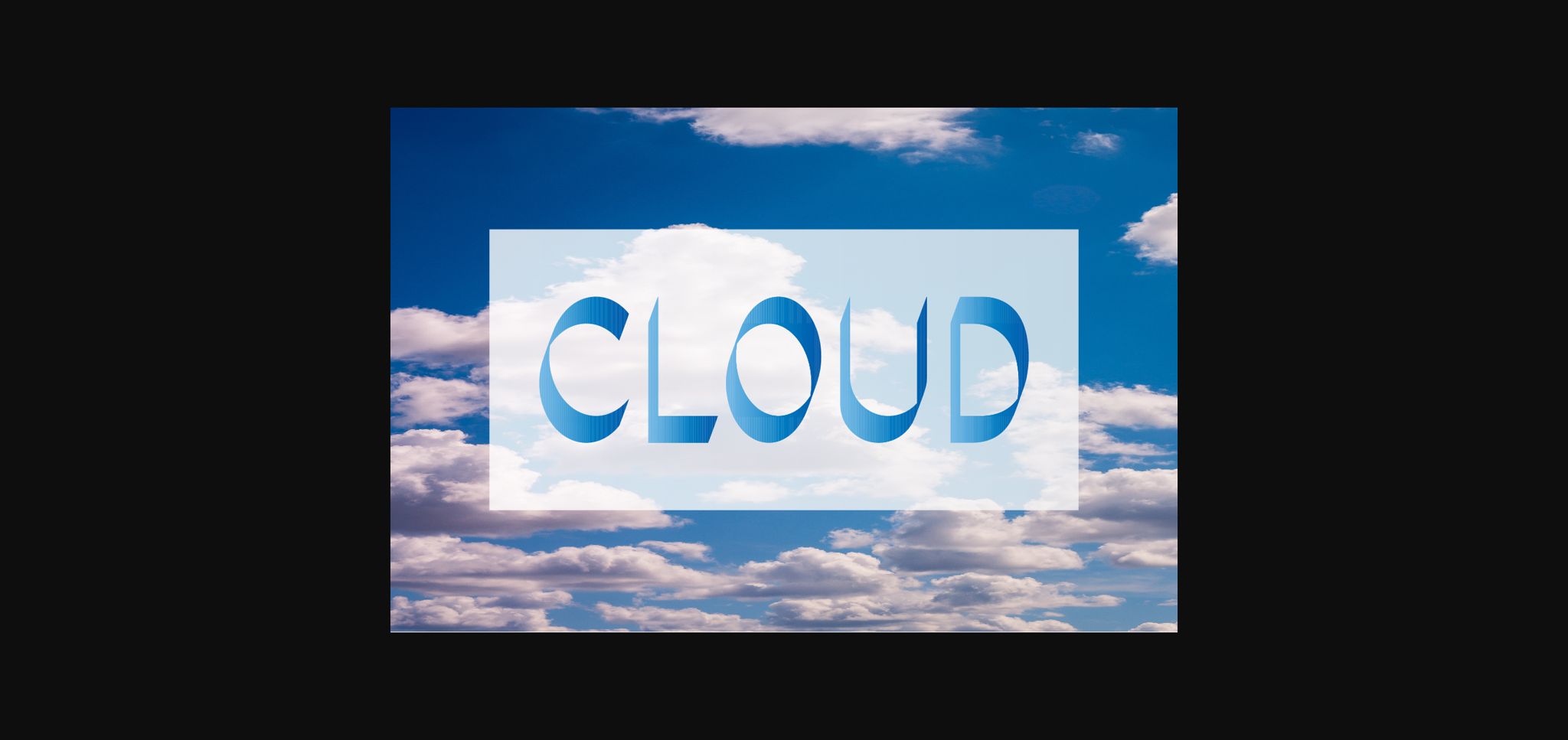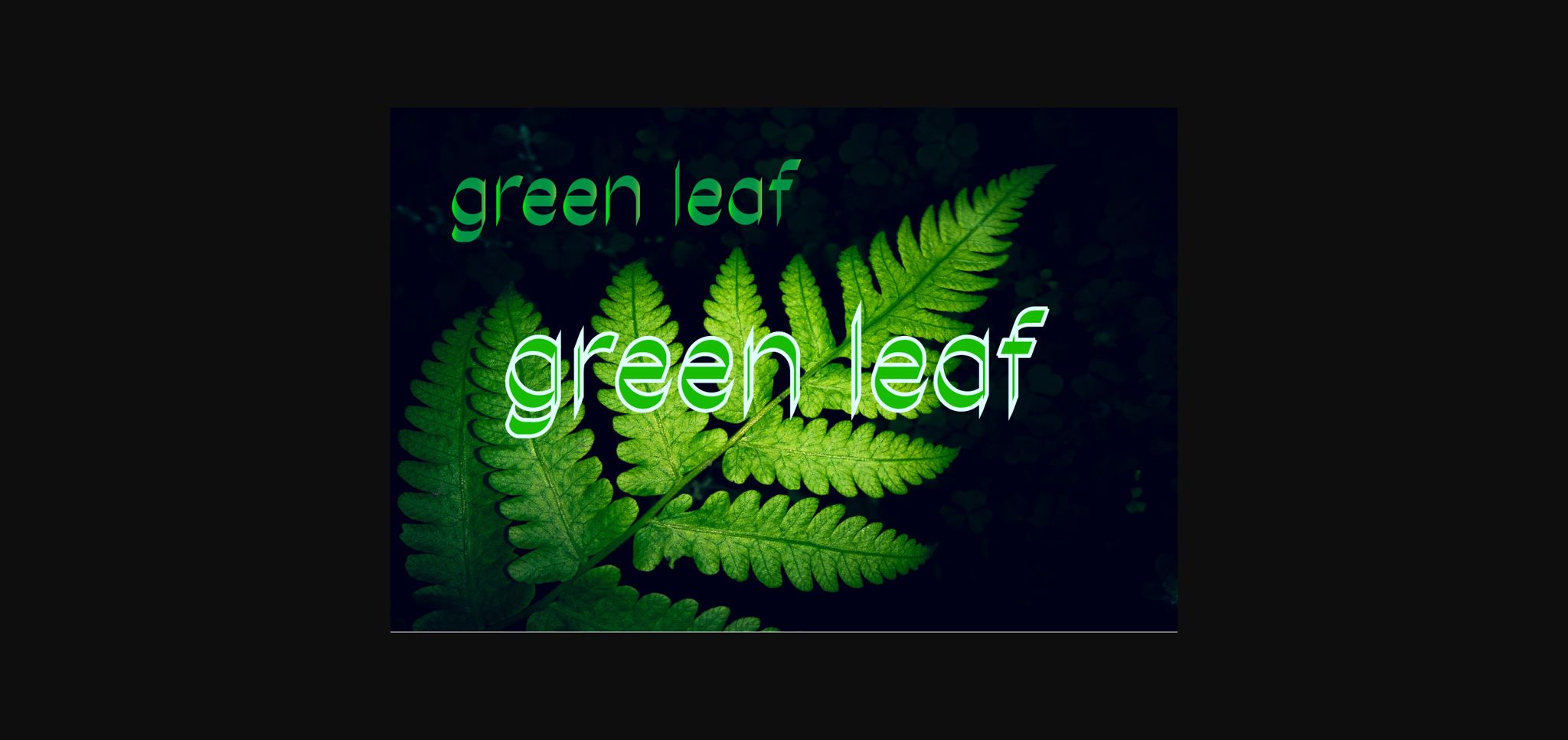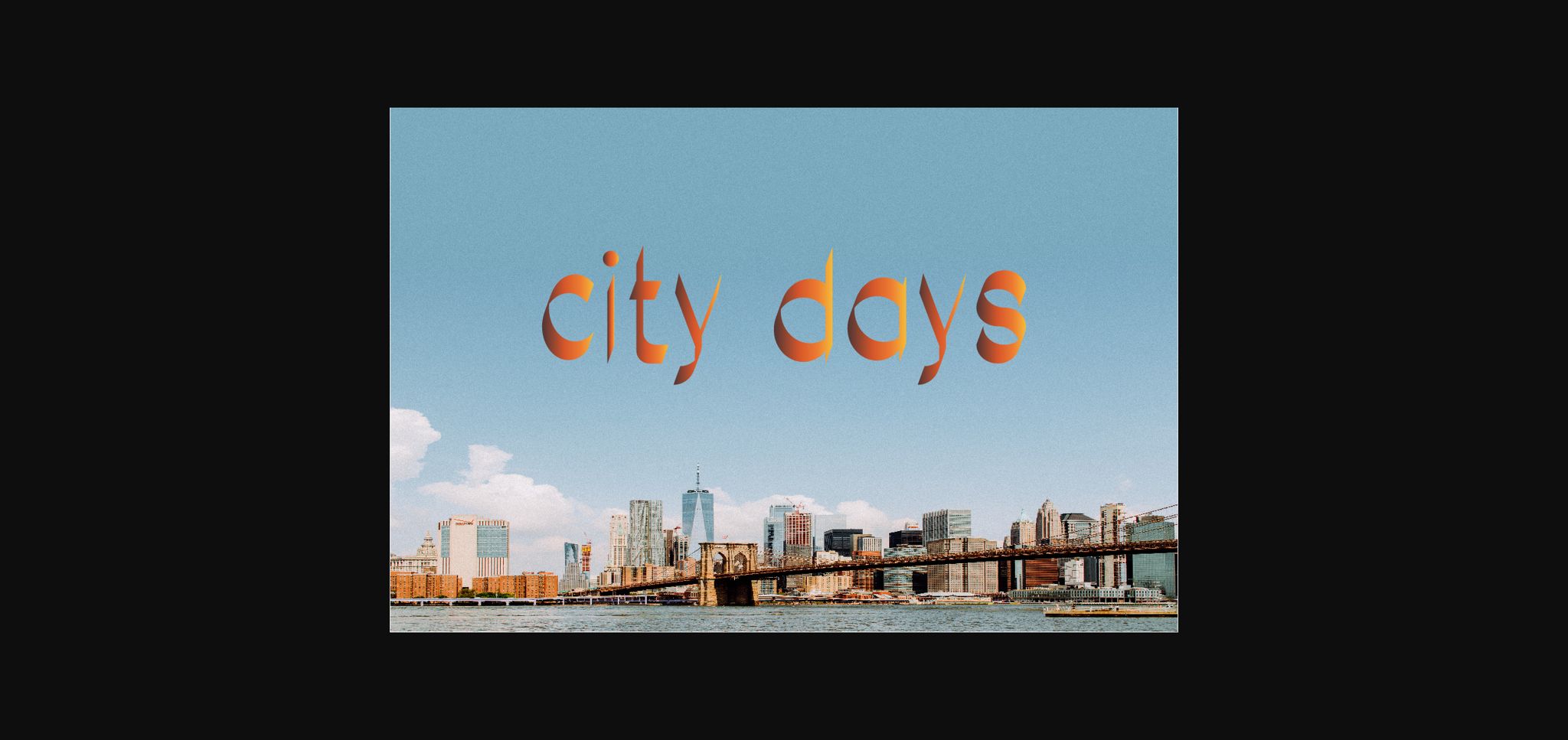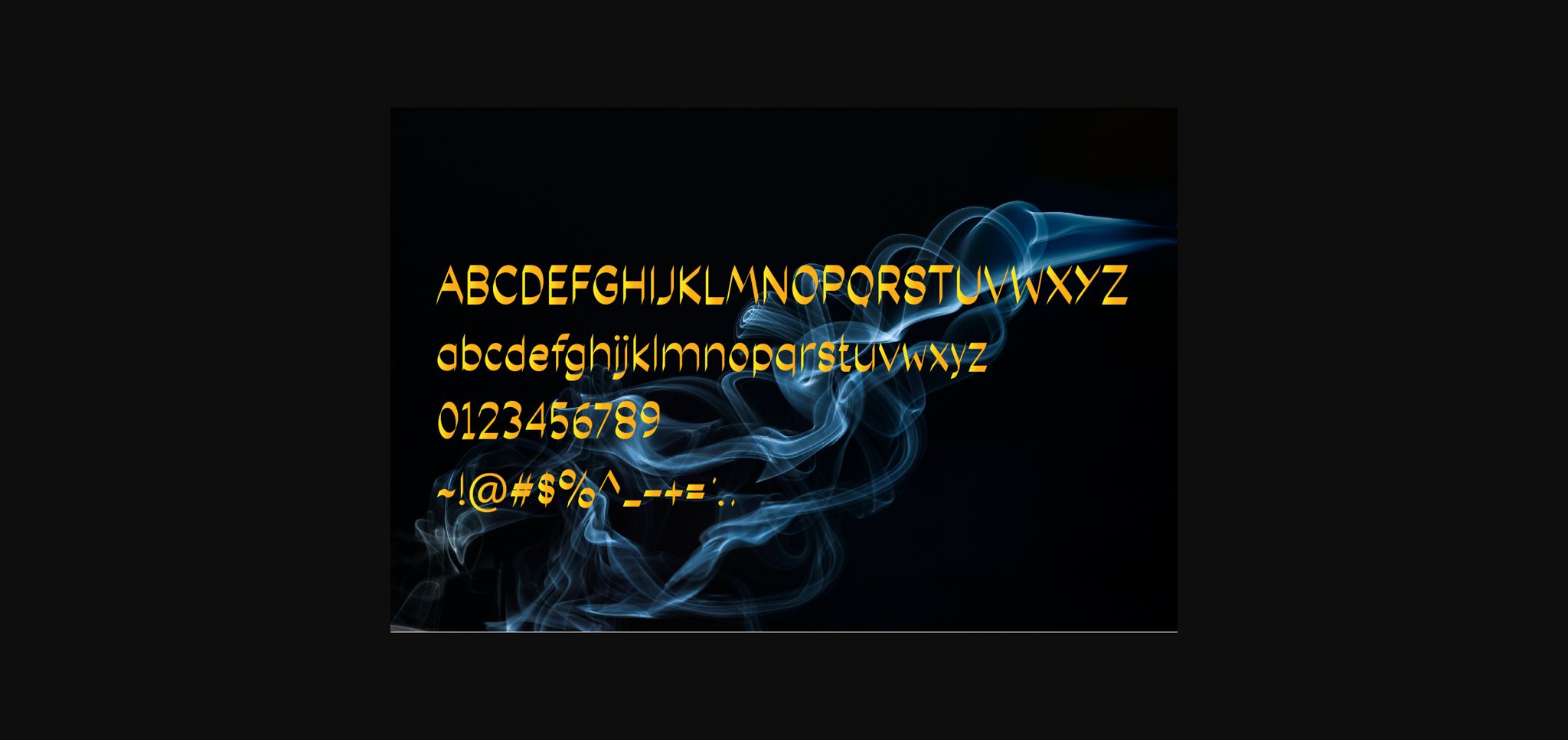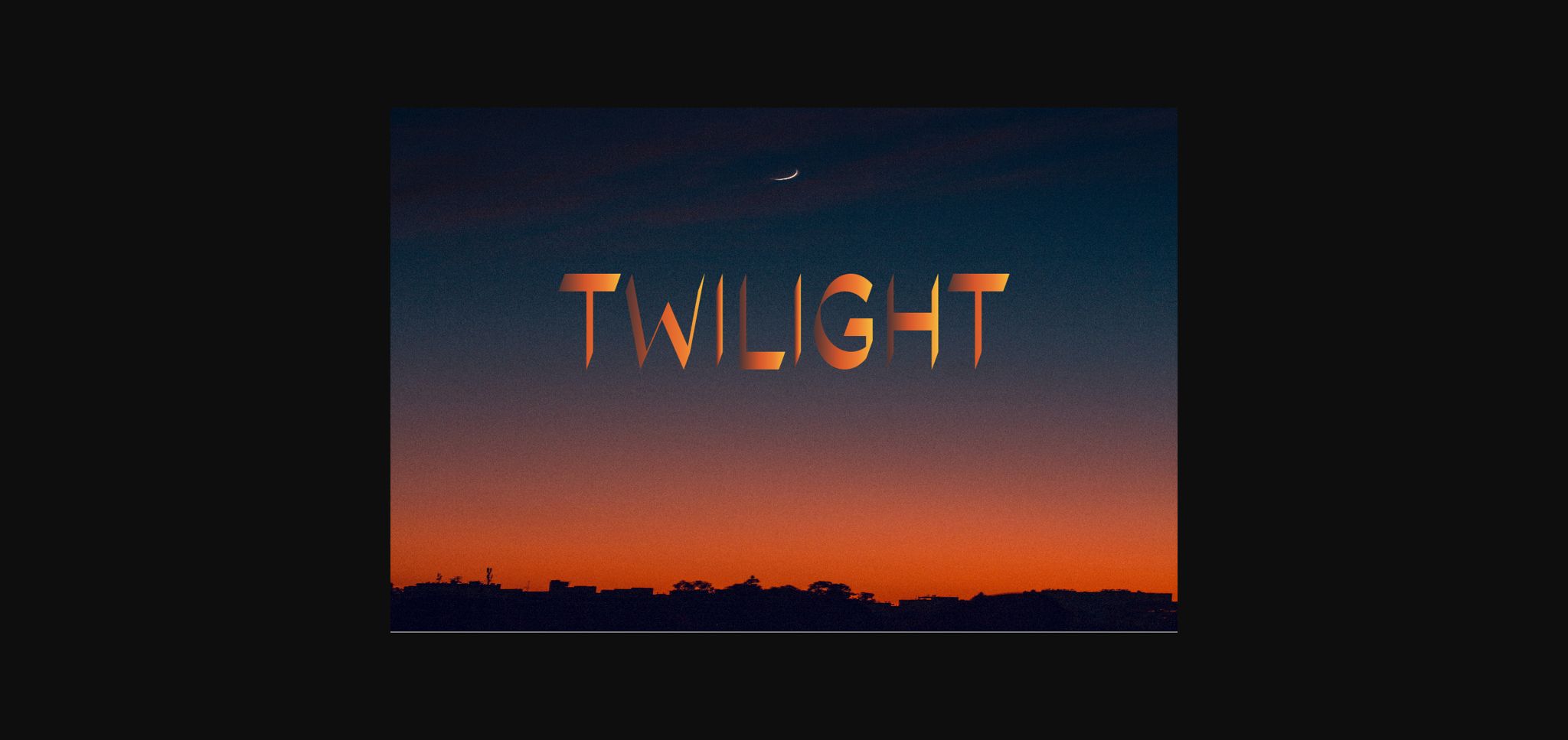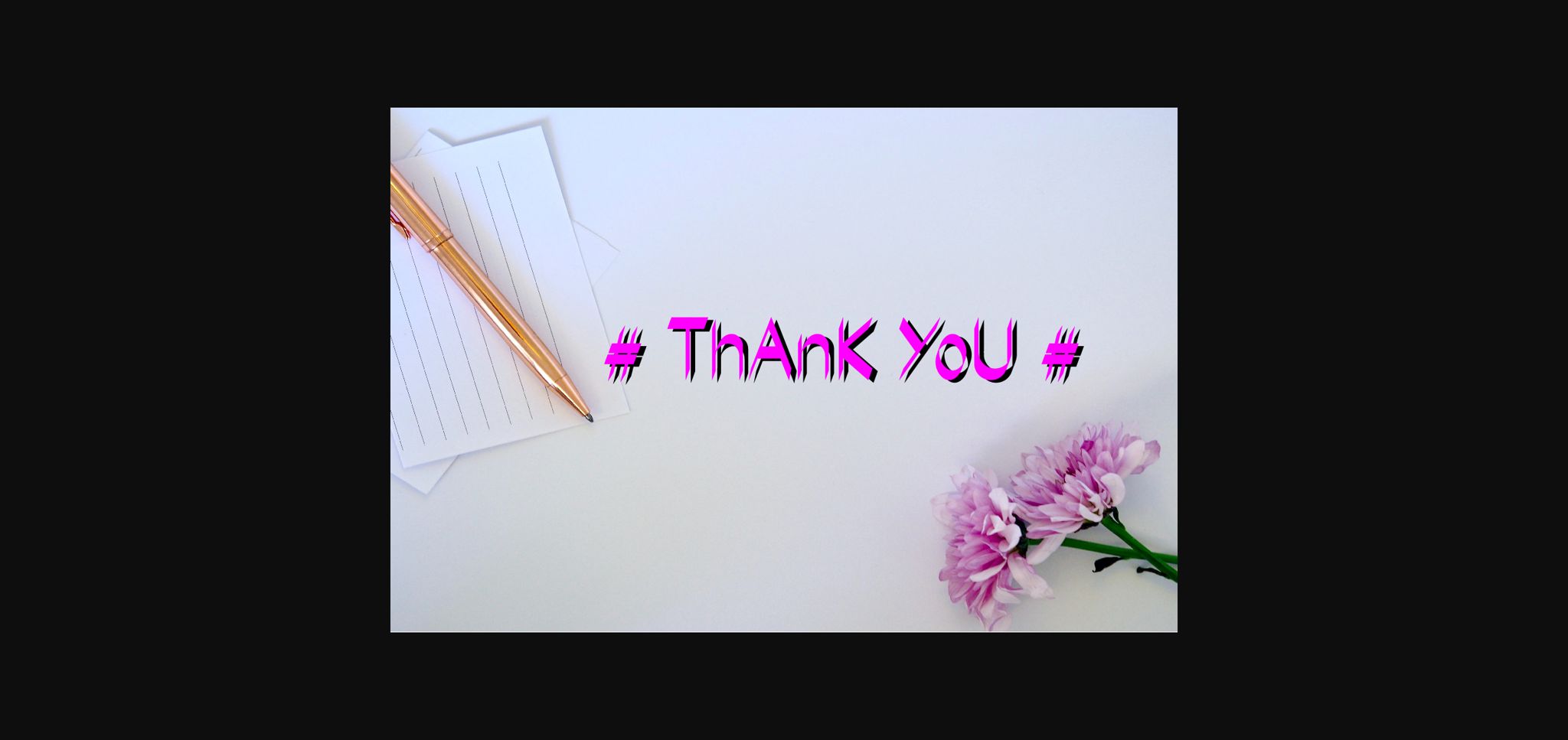
HomeSans Serif FontsCloud Font Sans Serif Fonts Cloud Font FacebookXPinterestWhatsApp 1 of 8 ... Cloud Font Poster 2... Cloud Font Poster 3... Cloud Font Poster 4... Cloud Font Poster 5... Cloud Font Poster 6... Cloud Font Poster 7... Cloud Font Poster 8... About Cloud Font Cloud is a unique and modern sans serif font. It can effortlessly be added to many designs. The only limit is your imagination! DOWNLOAD NOW People also explored Good Day Font Barely Hello Struggle Font Defense Hello Baby Font PN Rudential Font Dictionary in Library Font Hotline Font Welcome Summer Font 305 0 TagsCloudCloud Font Previous articleSpring Garden FontNext articleHyde Street Font LEAVE A REPLY Cancel reply Comment: Please enter your comment! Name:* Please enter your name here Email:* You have entered an incorrect email address! Please enter your email address here Website: Save my name, email, and website in this browser for the next time I comment. Personal Use Free Arnitta Callina Personal Use Free Read more about this font Knucklehead Personal Use Free Read more about this font Hatia Script Personal Use Free Read more about this font Monofonto Personal Use Free Read more about this font BLOG Transform Your Website: Elevate Your Typography with 7 Best Web Font Generators Are you ready to transform your website's typography from ordinary to extraordinary? Great! Today, we're diving into the world of web font generators, which... Exploring Font Trends To increase your work productivity, choose the most readable fonts. Free Fonts Risk: Why Free Fonts Can Be Dangerous for Designers